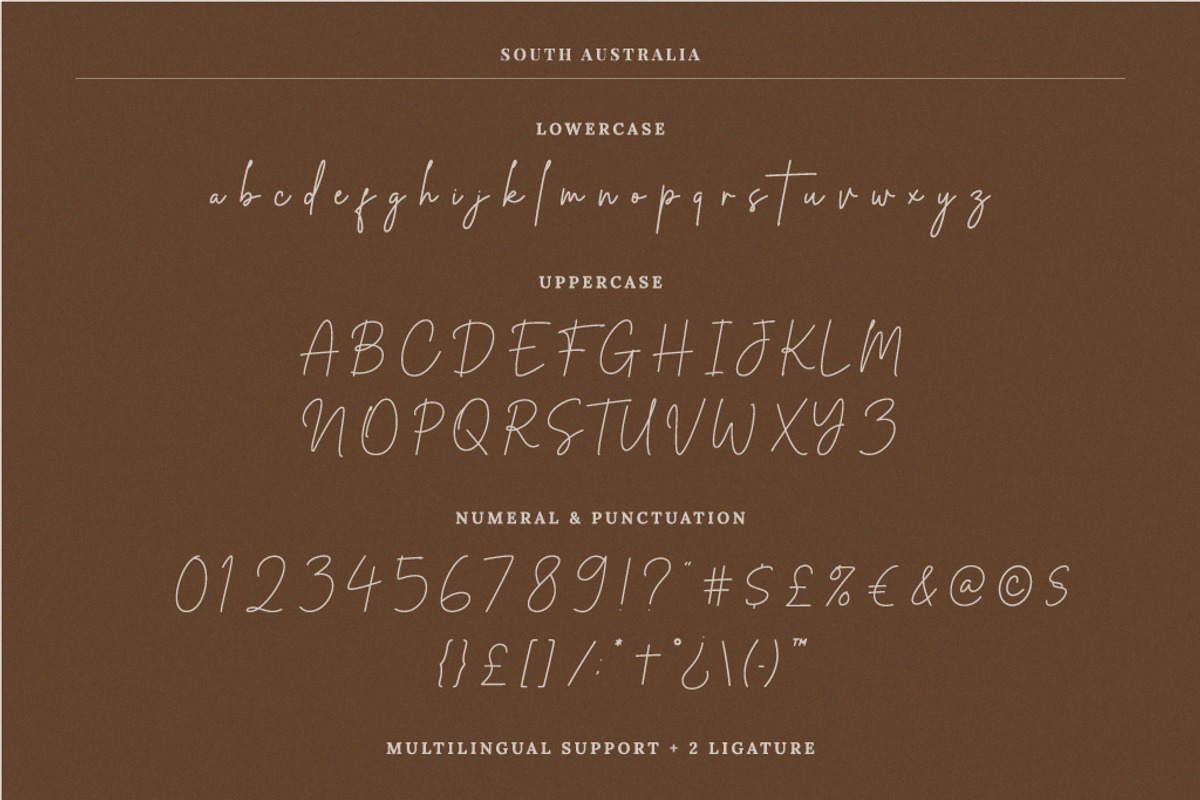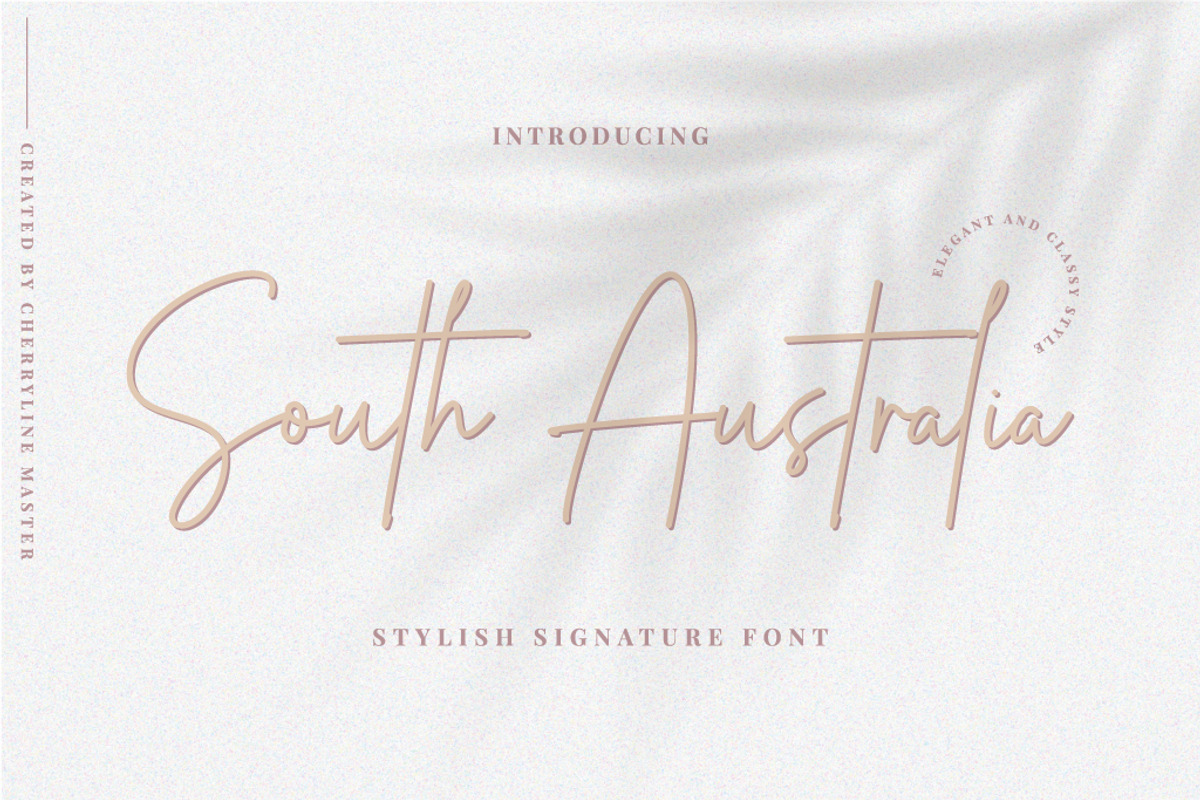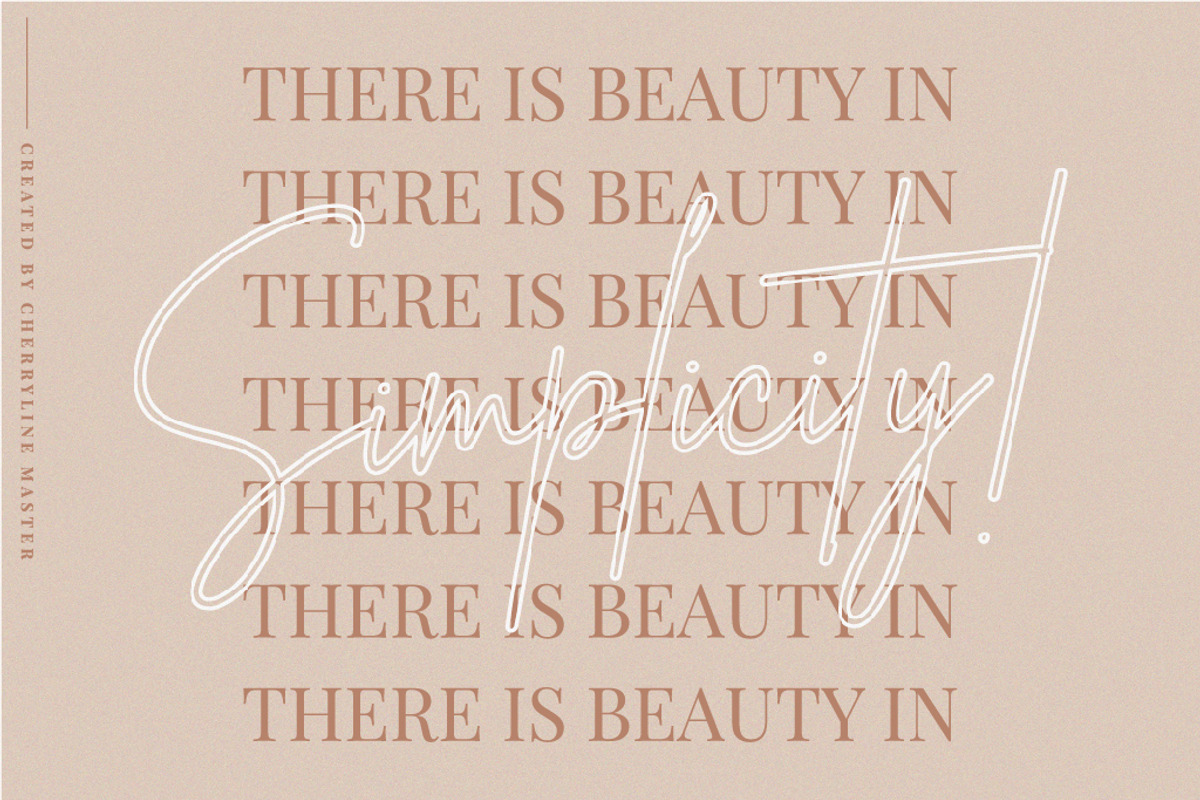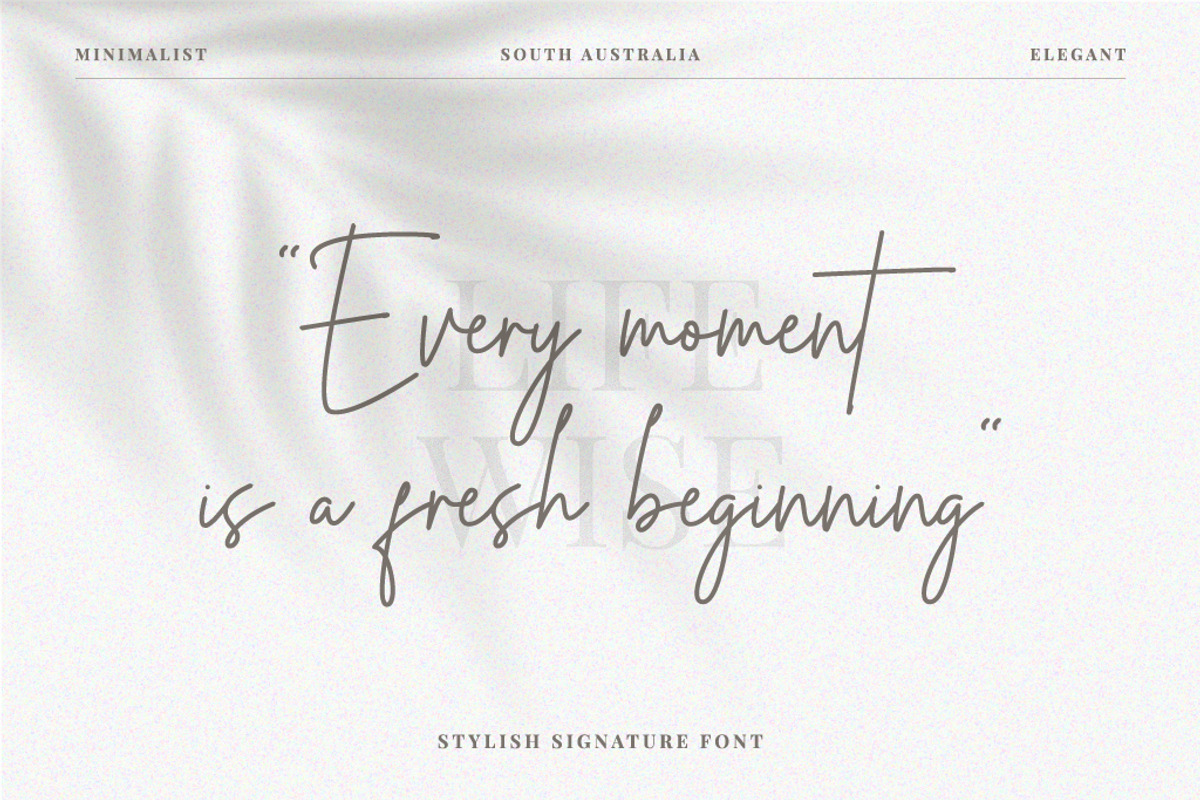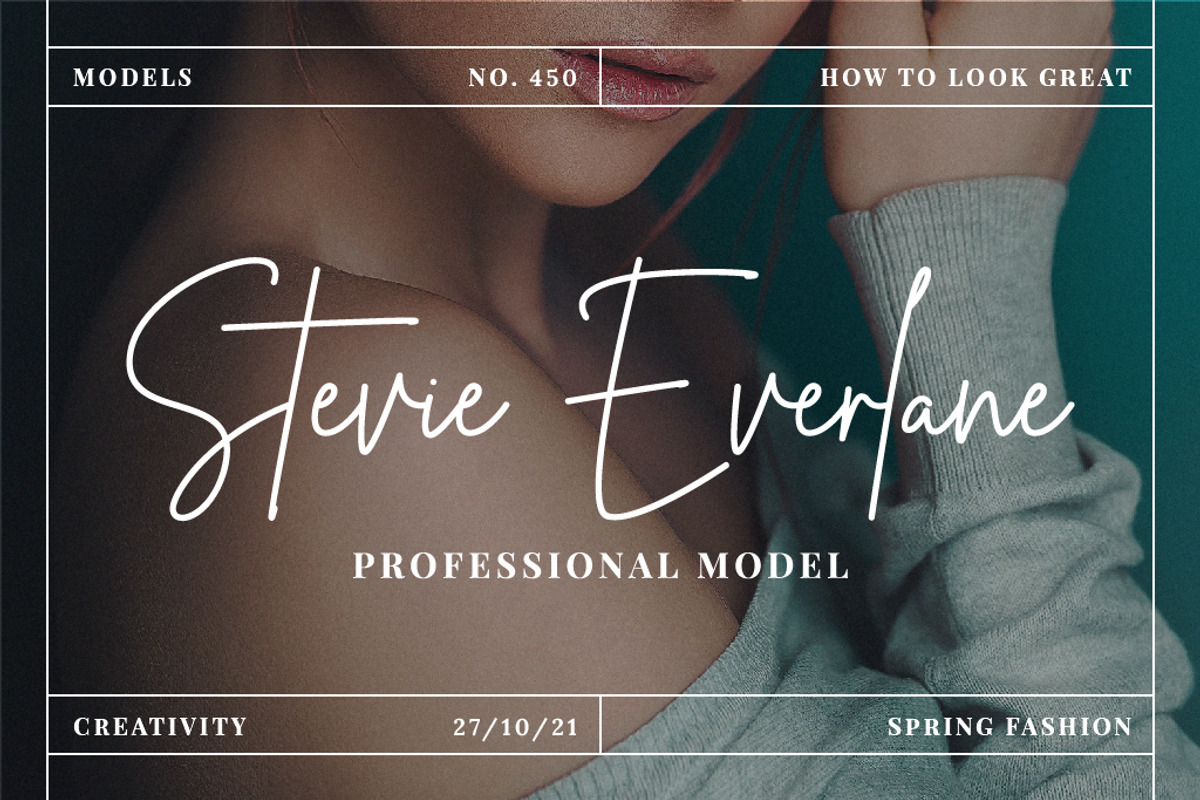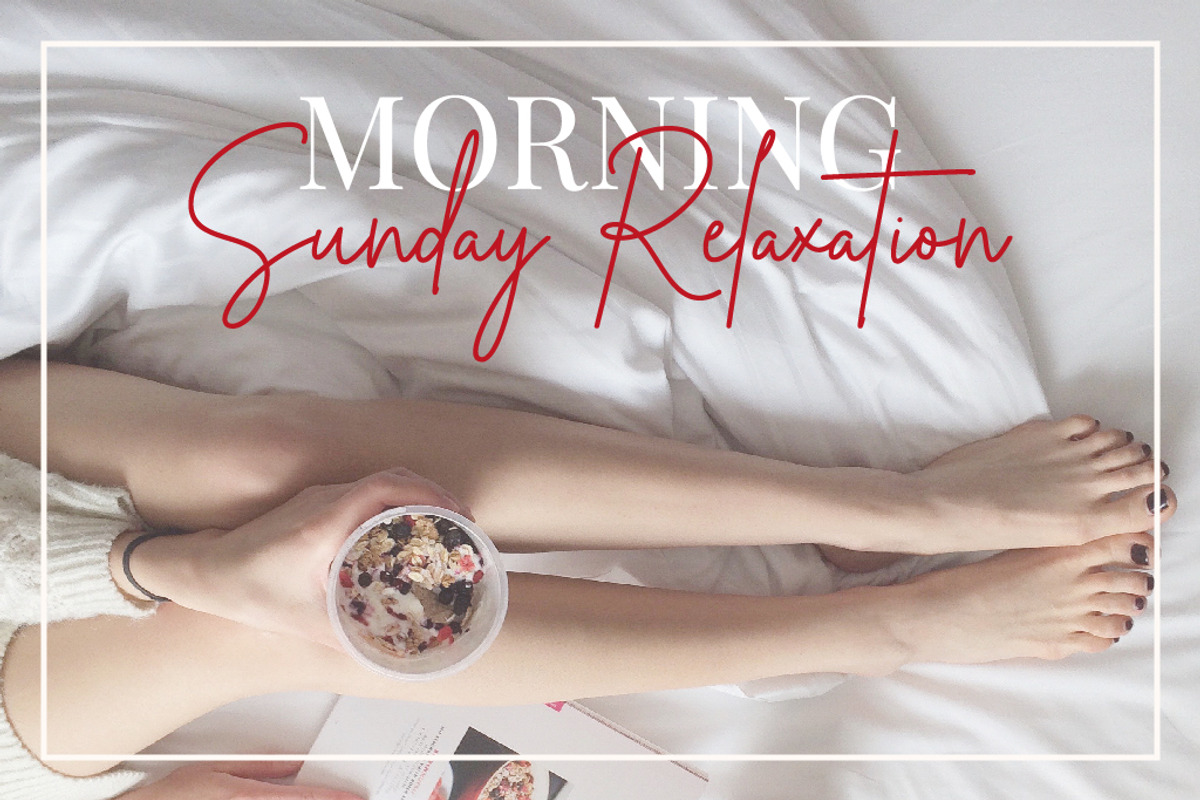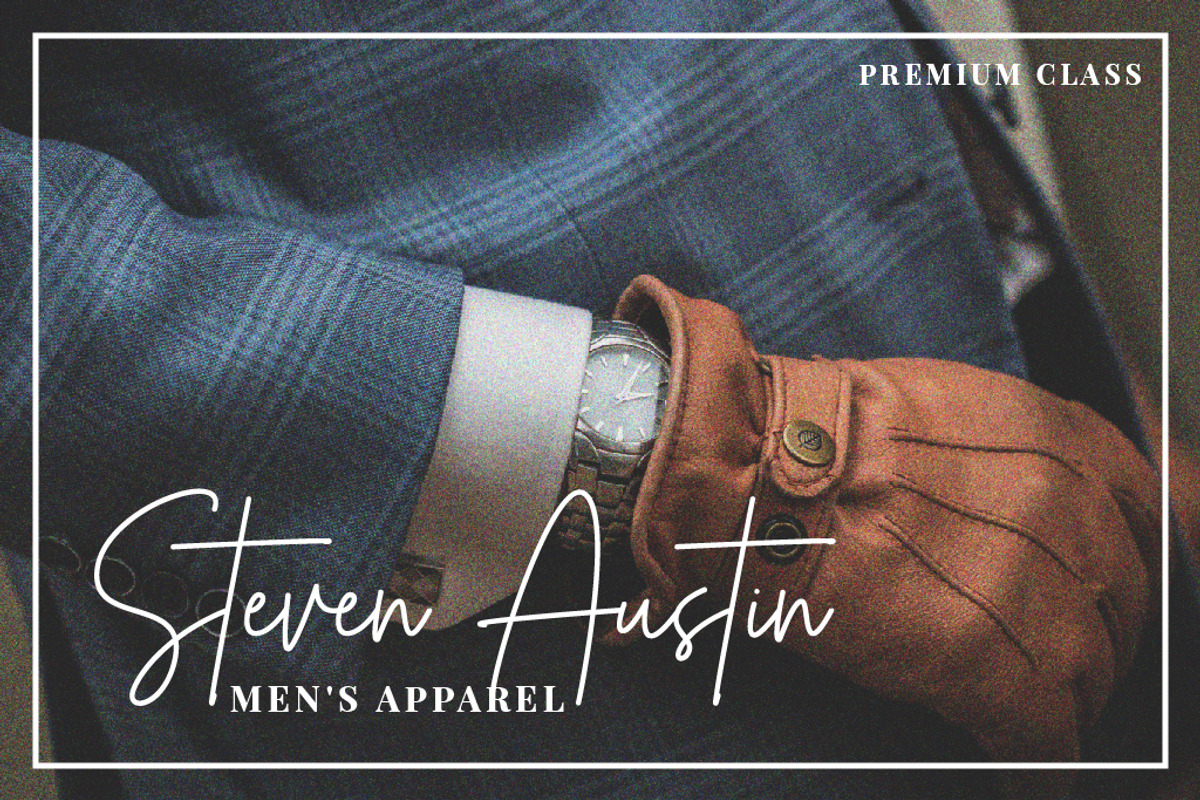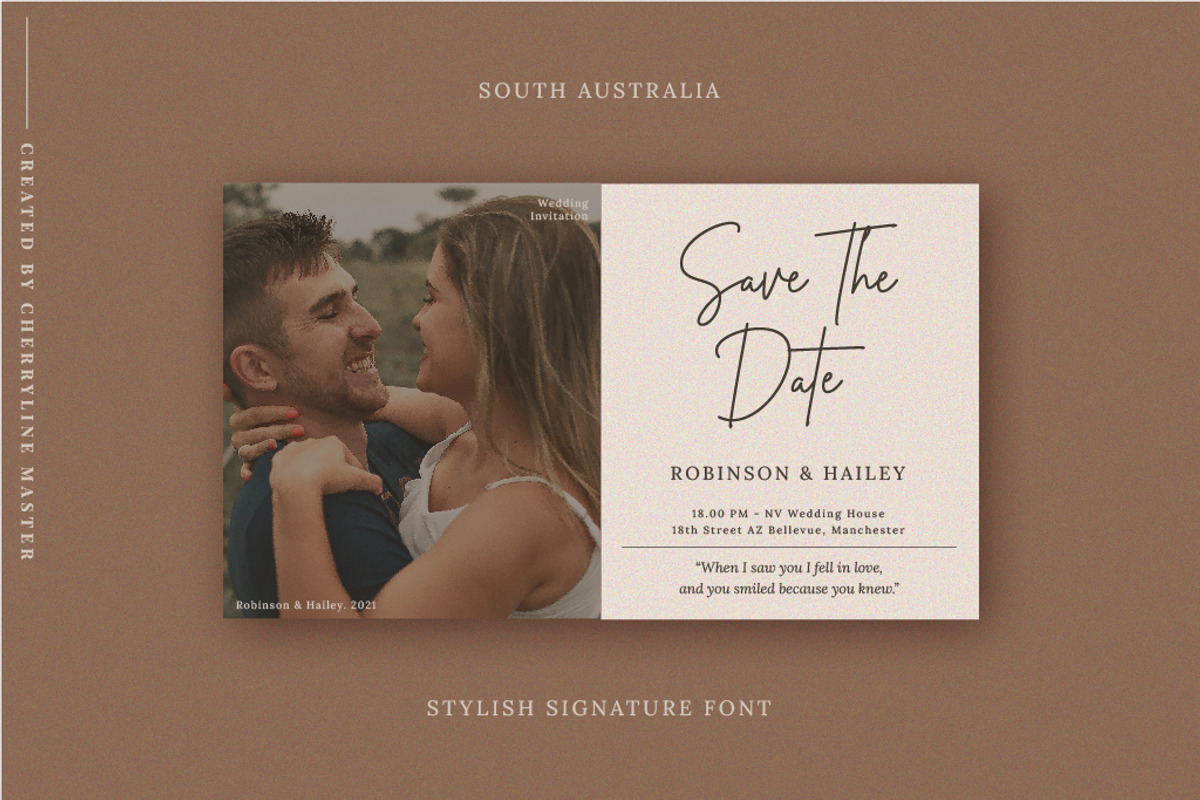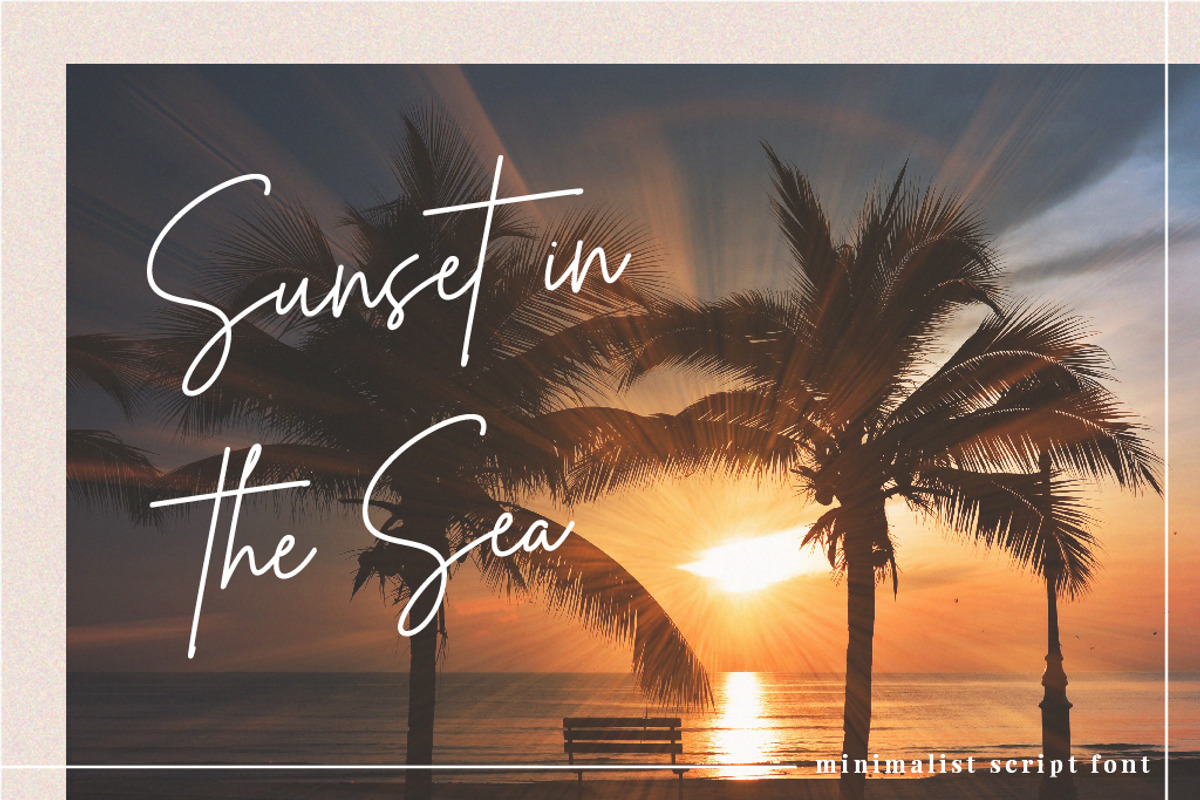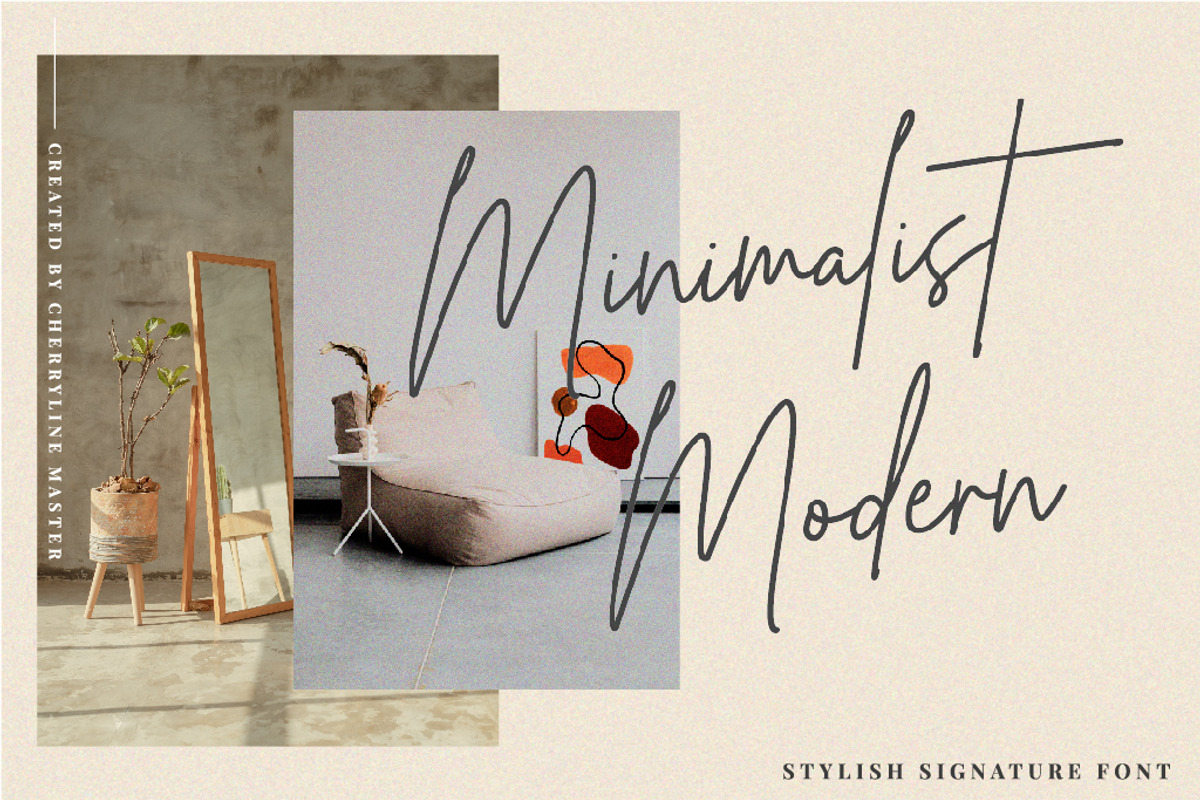
South Australia Stylish Script Font
South Australia Script is a stylish and modern signature font with an elegant touch. South Australia Script is perfect for product branding/design/packaging, promotional media, social media posts/stories, wedding invitations, advertisements, watermarks, stationery, invitation cards, and other design projects.
- Multilingual Support: Afrikaans, Danish, Dutch, French, German, Indonesian, Irish, Italian, Norwegian, Portuguese, Romansh, Scottish, Spanish, and Swedish